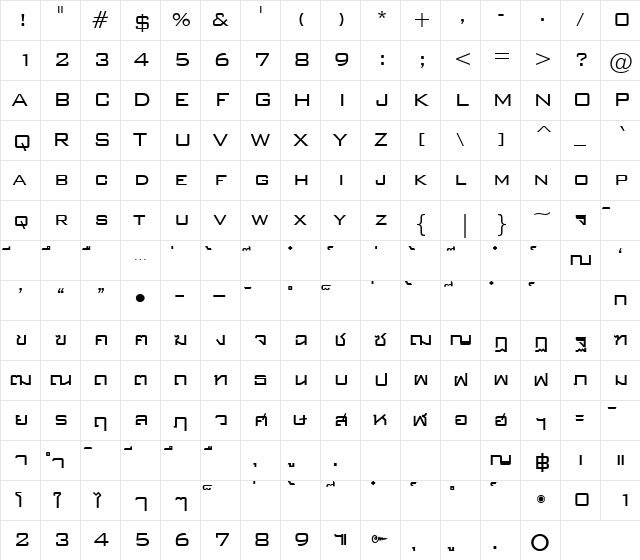
SP Armageddon Regular
| Foundry | Sampan Sittiwantana |
Design Context for SP Armageddon Typeface
SP Armageddon is a composed and adaptable typeface that performs quietly and consistently across a wide range of design contexts.